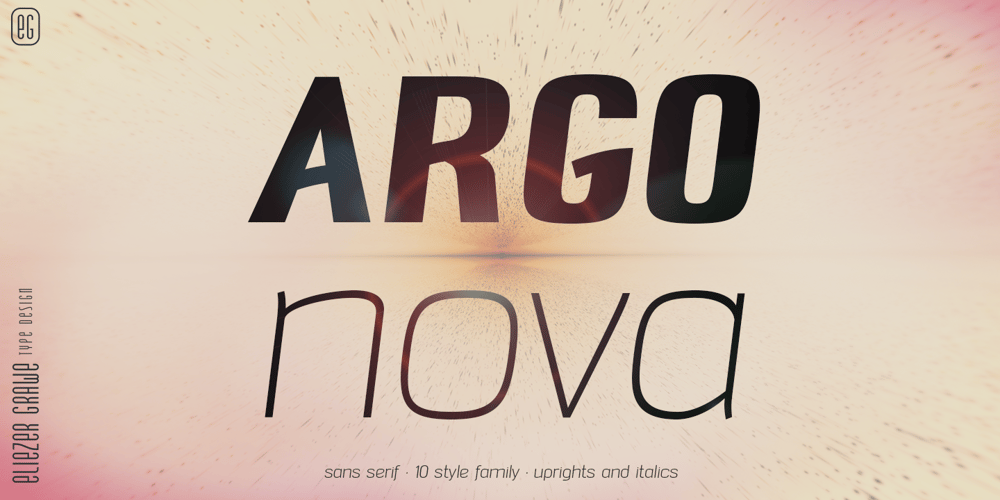
Argo Nova Font Family was designed by Eliezer Grawe and published by Eliezer Grawe. Argo Nova contains 9 styles and family package options. In Greek mythology, Argo was the ship on which Jason and the Argonauts sailed from Iolcos to Colchis to retrieve the Golden Fleece.The Argo Nova font is an adventure though geometric sans universe with a touch of humanistic feel, bringing a different look with curved vertical strokes and high contrast on thicker weights.Designed with OpenType features, it includes extended Latin support, fractions, tabular and old-style figures, ligatures and more.With no excess in mind, it came in 10 styles (5 uprights and is matching italics) and it is a font family ideal for text, branding, signage, editorial, print and web design creations. 5 weights: Thin, Light, Regular, Bold and Black Matching italics Lining and old-style figures with proportional and tabular spacing Ligatures on “f” Alternate characters for a, æ, g and ß Fractions Ordinals Extended language support, designed following the Underware Latin Plus character set, with 534 glyphs, supporting 219 Latin based languages (see https://underware.nl/latin_plus/languages/). * Some features require an application with OpenType support.